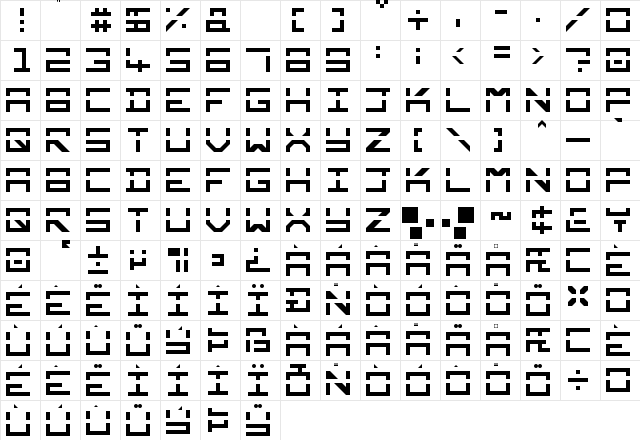
Square Mile Regular Free Font
Square Mile Regular
Designer: peps1992
Design Context for Square Mile
Square Mile is a composed and adaptable typeface that performs quietly and consistently across a wide range of design contexts.